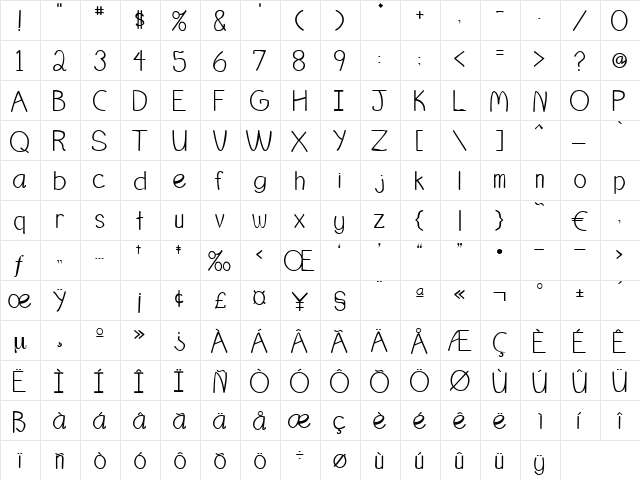
Birdie Regular Font Preview
Birdie Regular
Birdie Regular Font Details
Design Context for Birdie Typeface
Birdie offers clean, dependable letterforms without strong stylistic allegiance, making it a practical choice for designers who need flexibility.
Pro Tip: Use Birdie in both headline and body roles to test its range before committing to a single application.